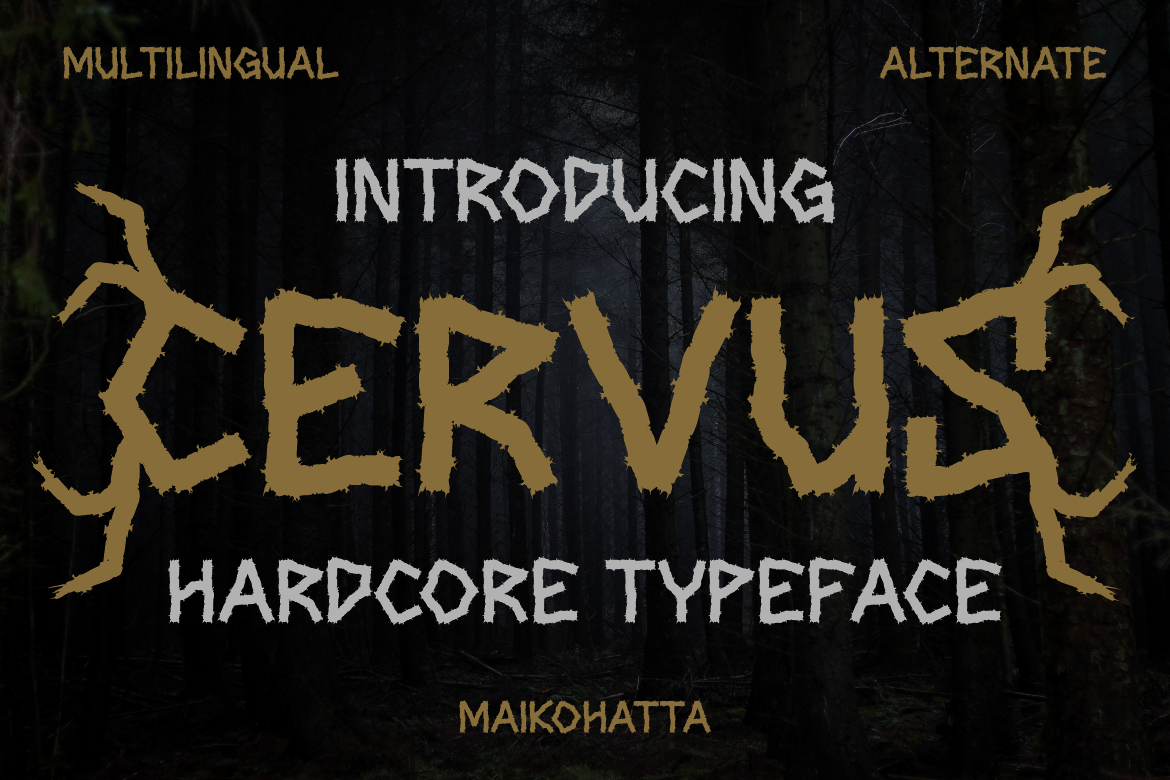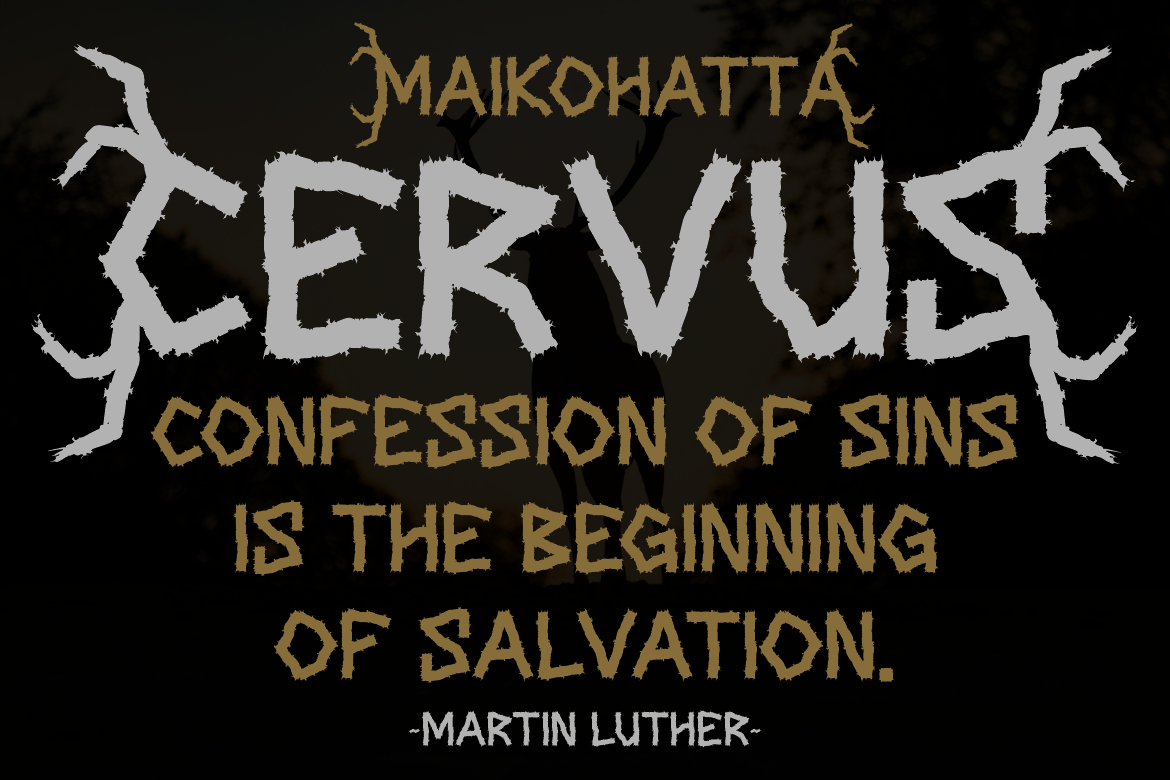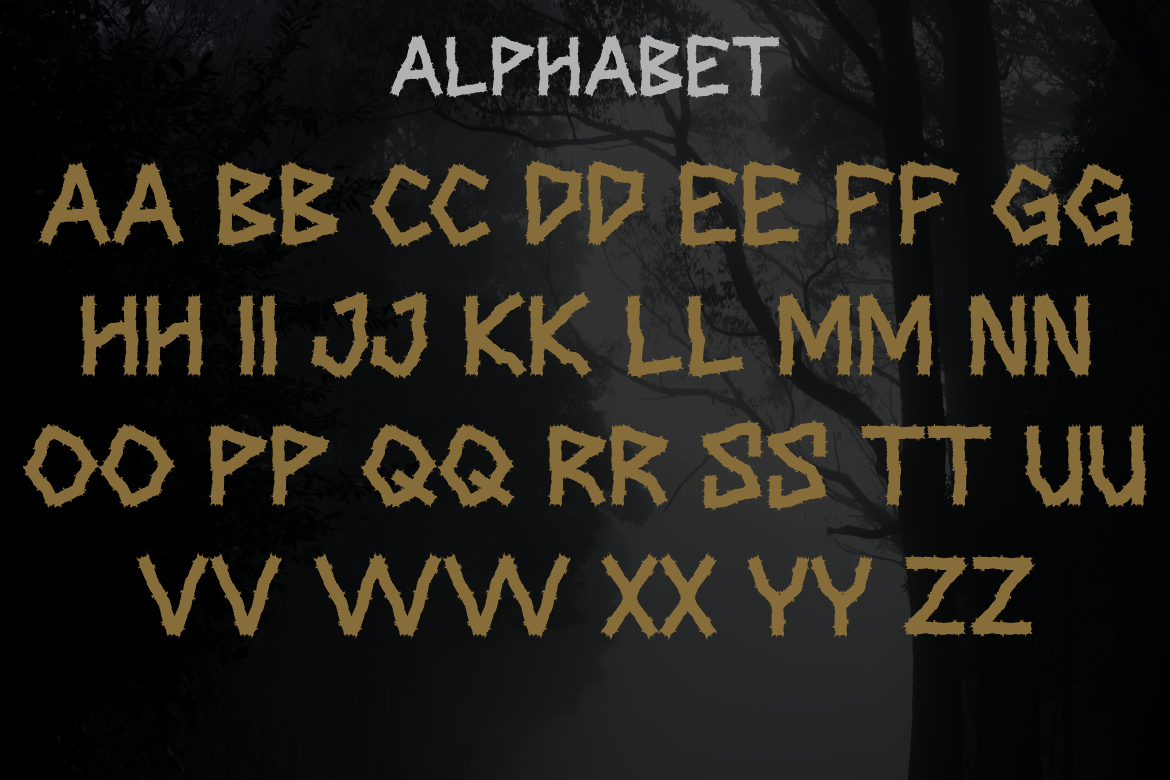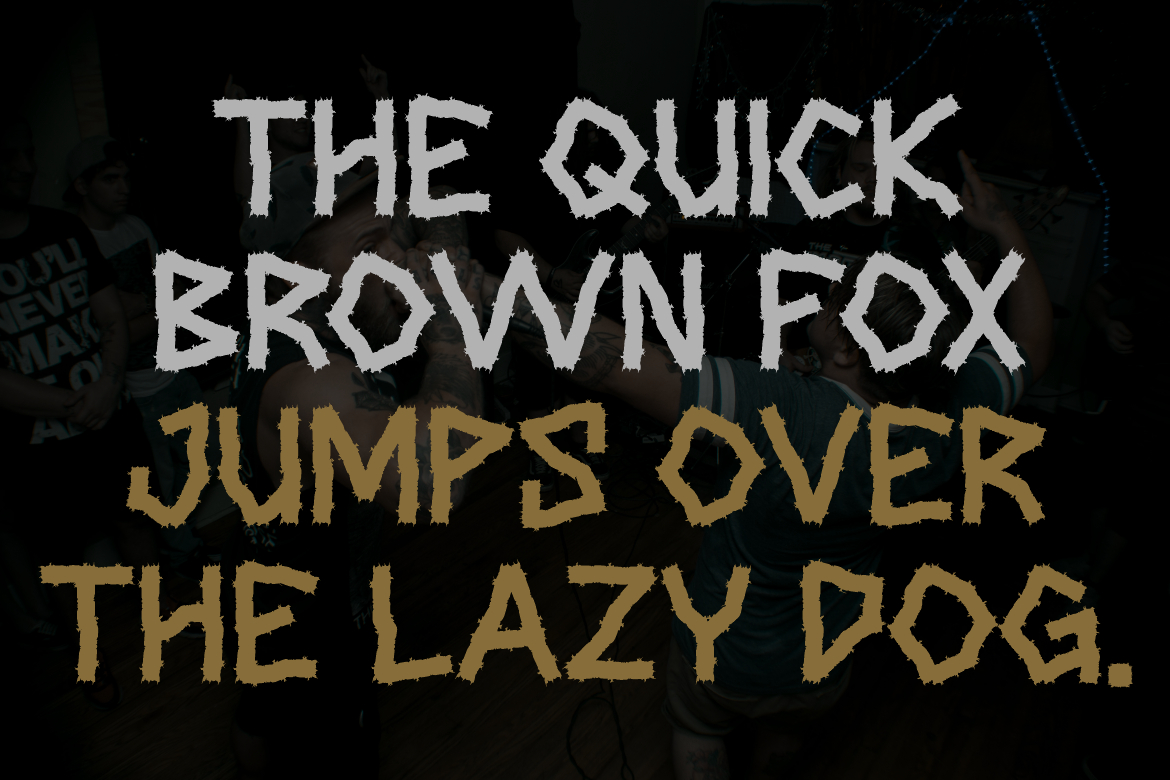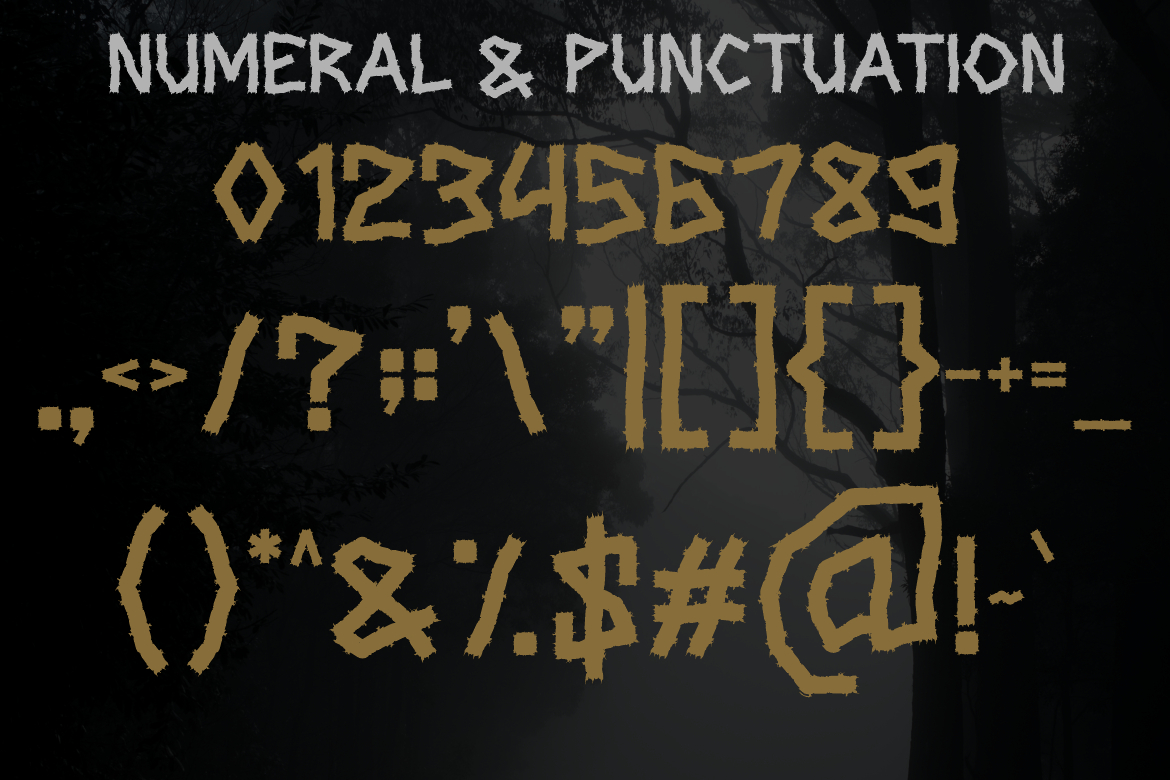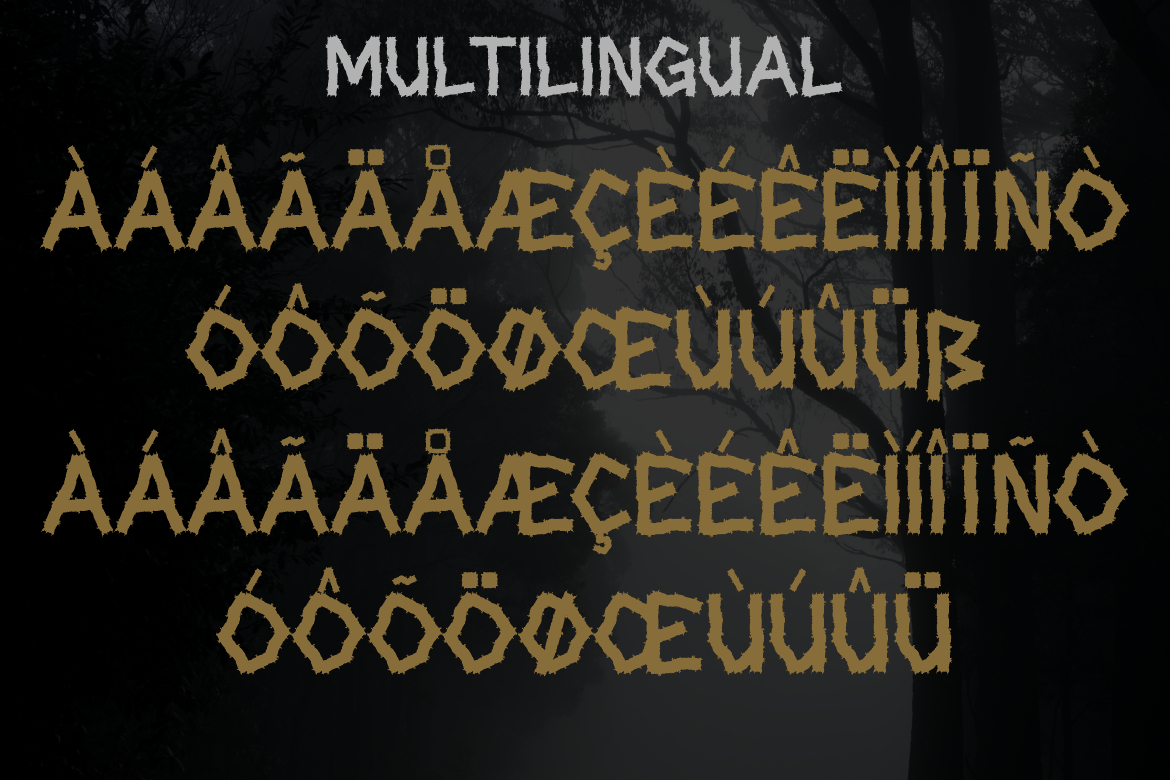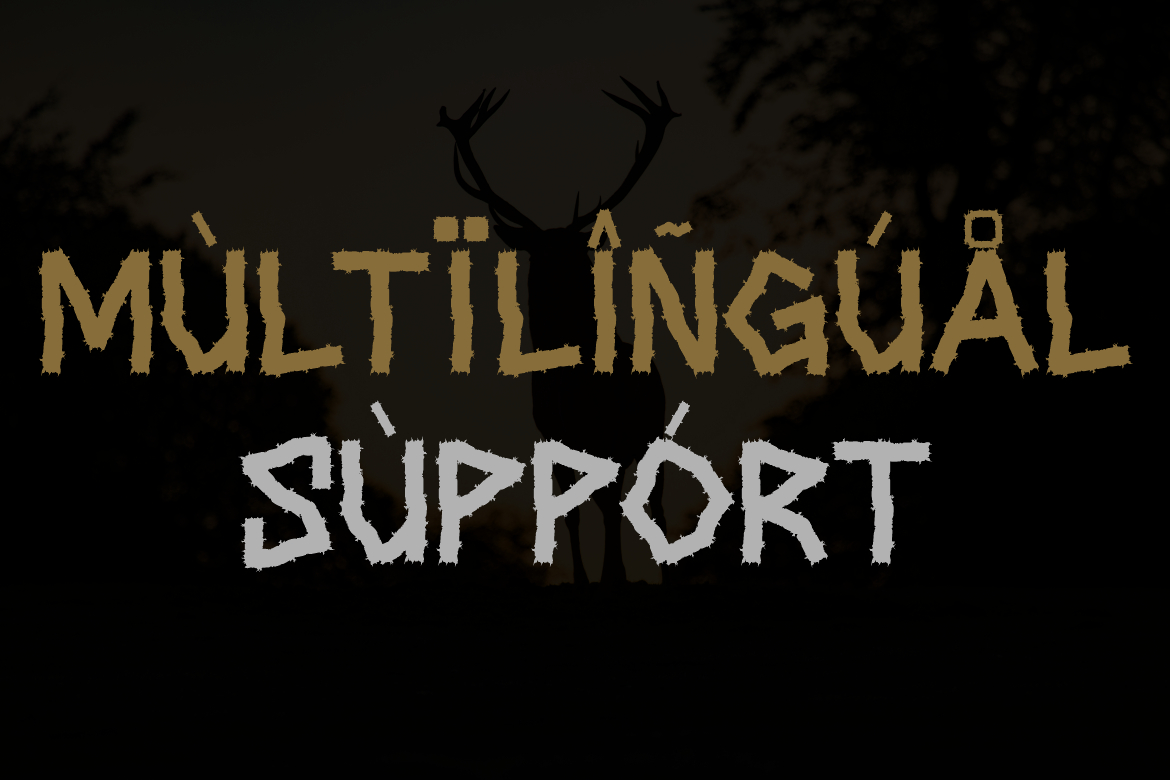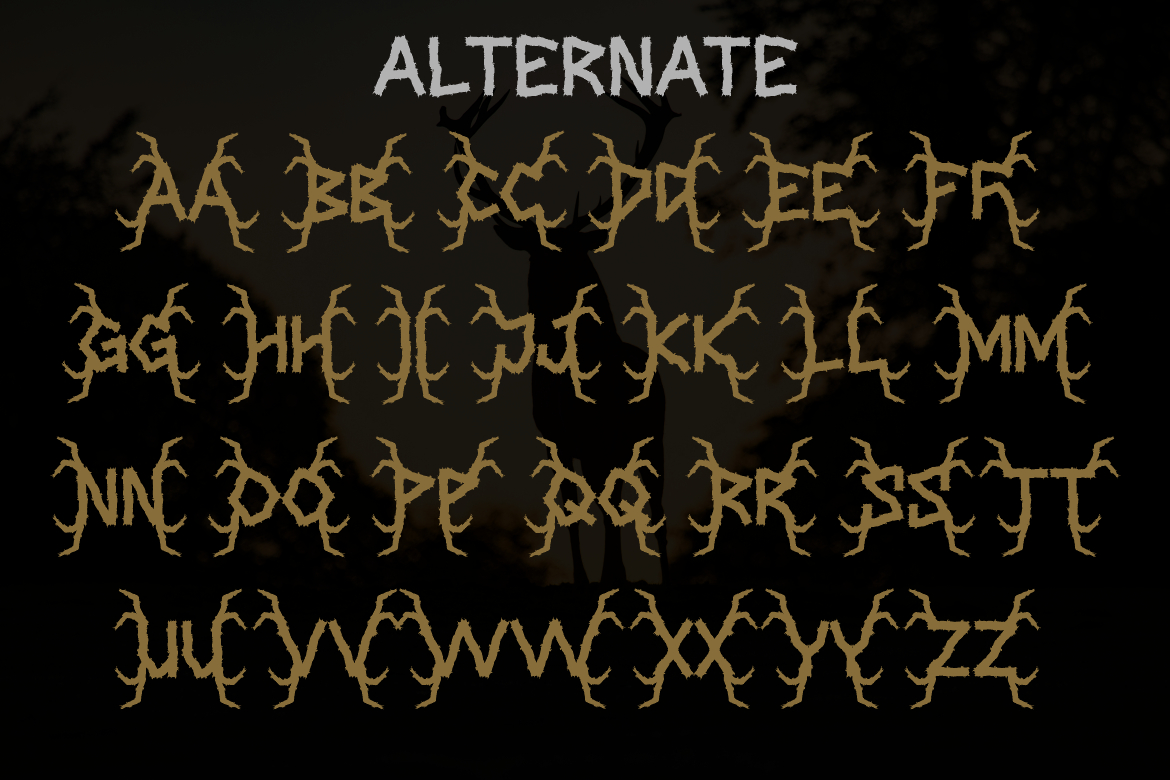
Cervus Font
About Cervus Font
Cervus is a bold and thick lettered blackletter font. Add it confidently to your projects, and you will love the results.